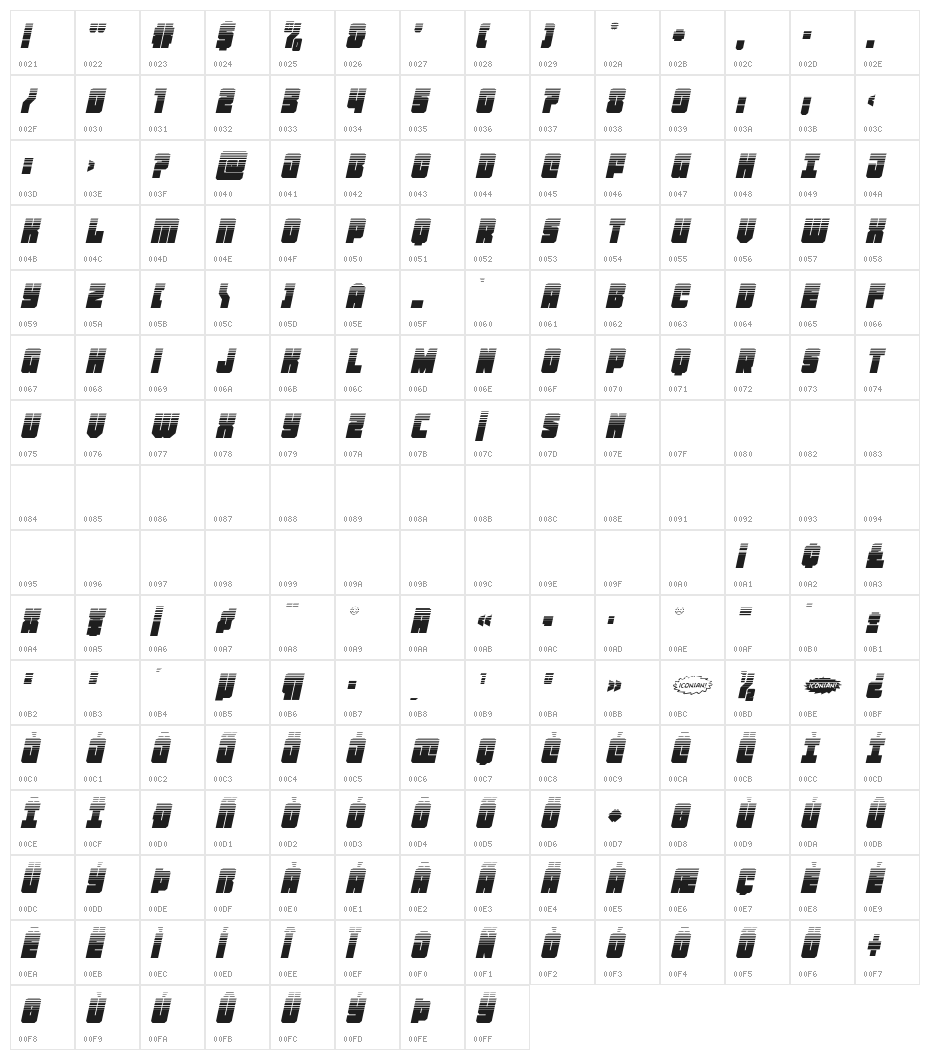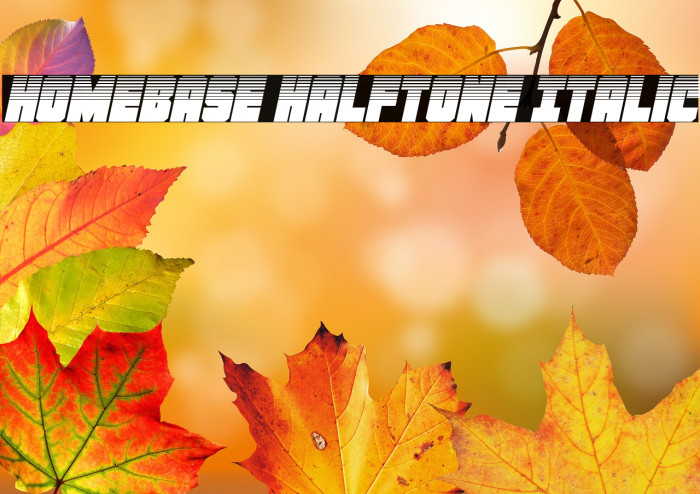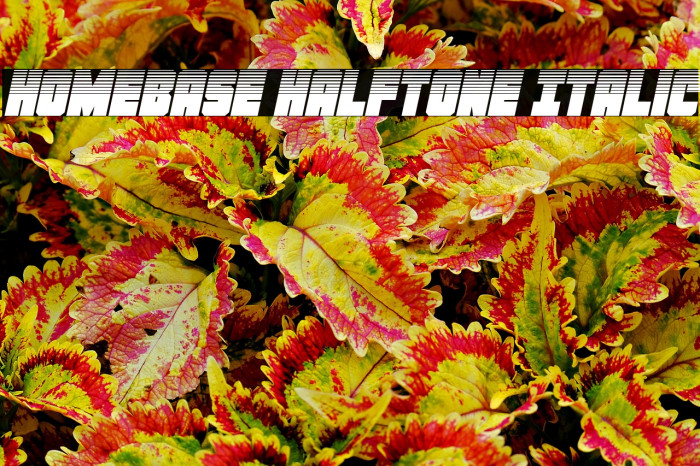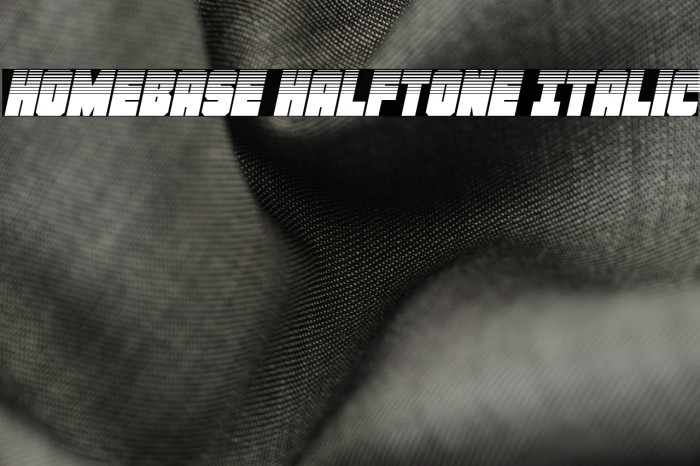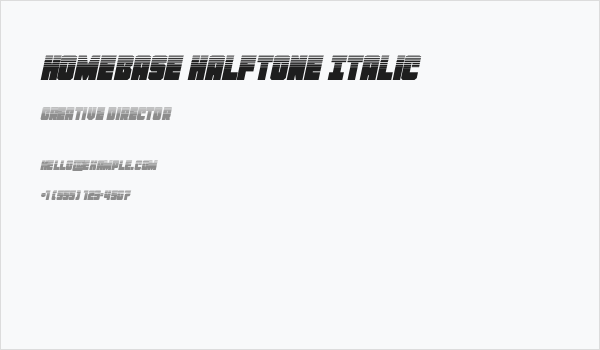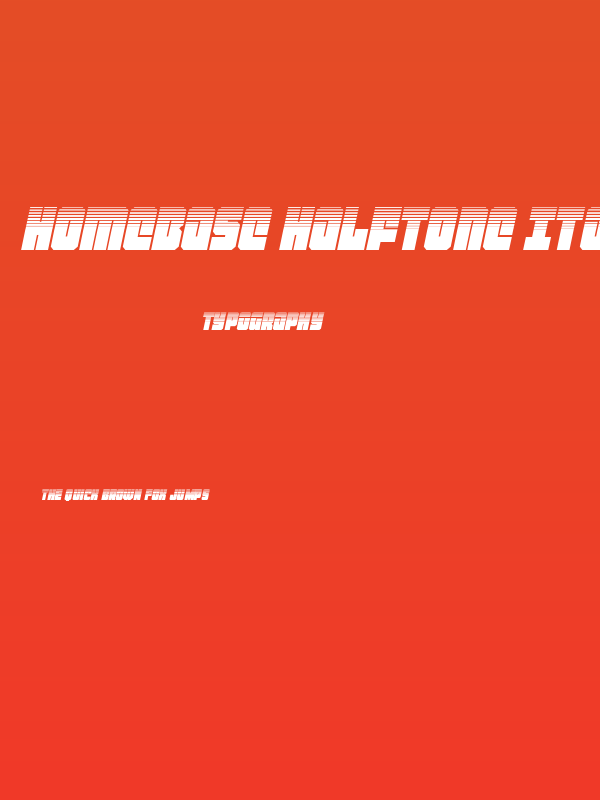
Homebase Halftone Italic Font
Homebase Halftone Italic Description
This font features a bold, italicized style with a unique halftone effect that gives it a dynamic and modern appearance. The characters are designed with horizontal lines that create a sense of movement and depth, making it stand out in any design. The uppercase and lowercase letters maintain a consistent width, providing a uniform look across the typeface. The numbers and special characters are crafted with the same attention to detail, ensuring they integrate seamlessly with the letters. This font's distinctive style is perfect for projects that require a bold and eye-catching typeface.
| Proposed Projects | This font is perfect for use in posters, logos, and branding materials where a strong visual impact is desired. |